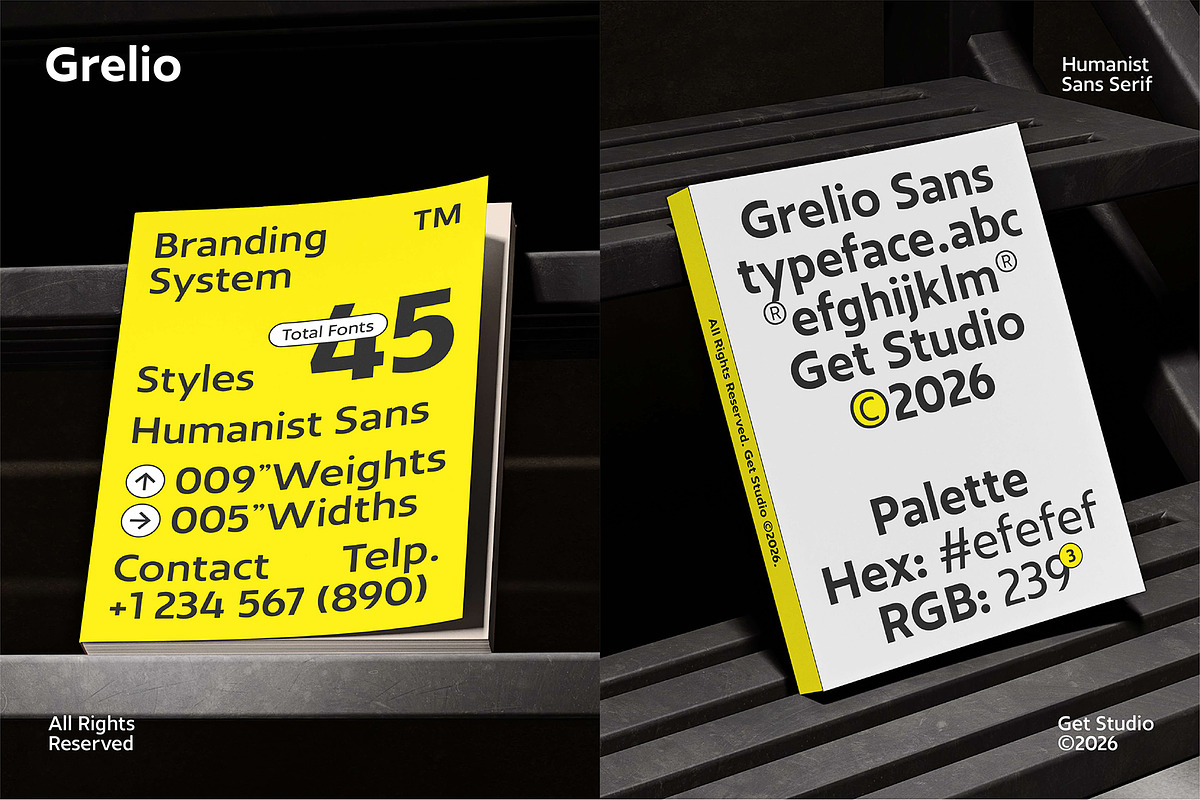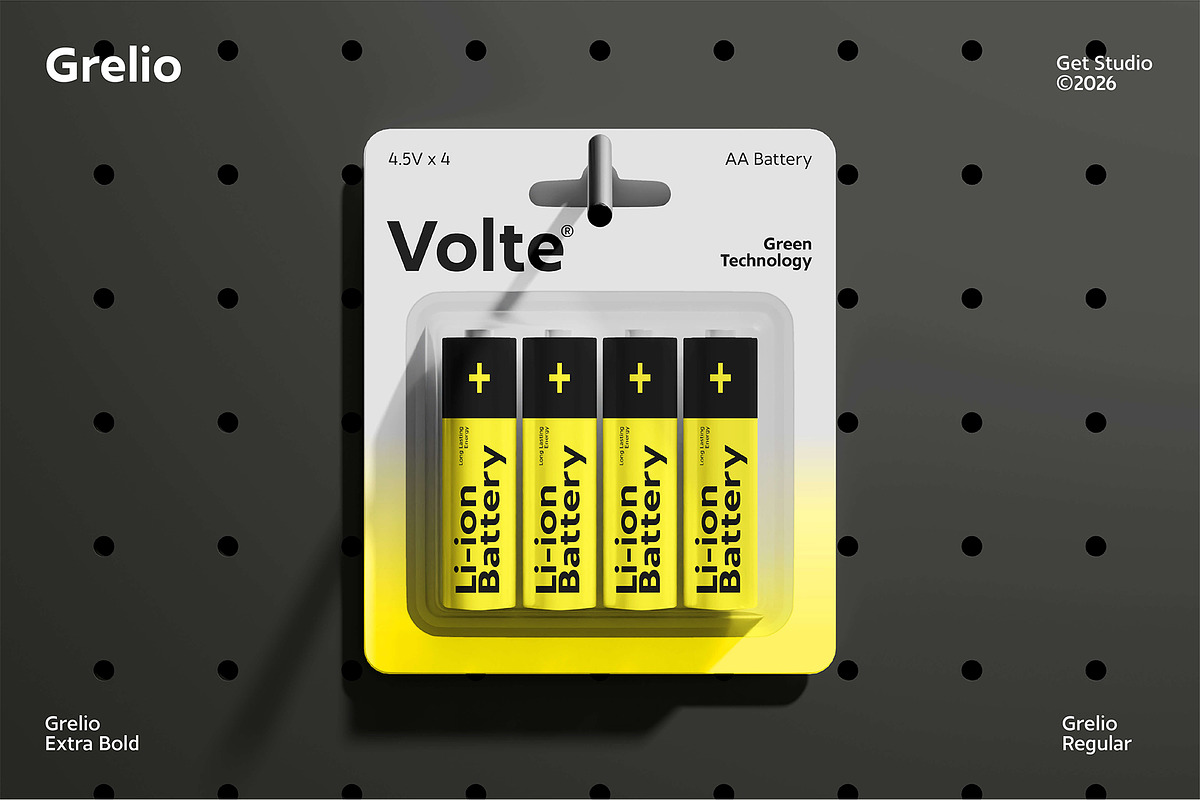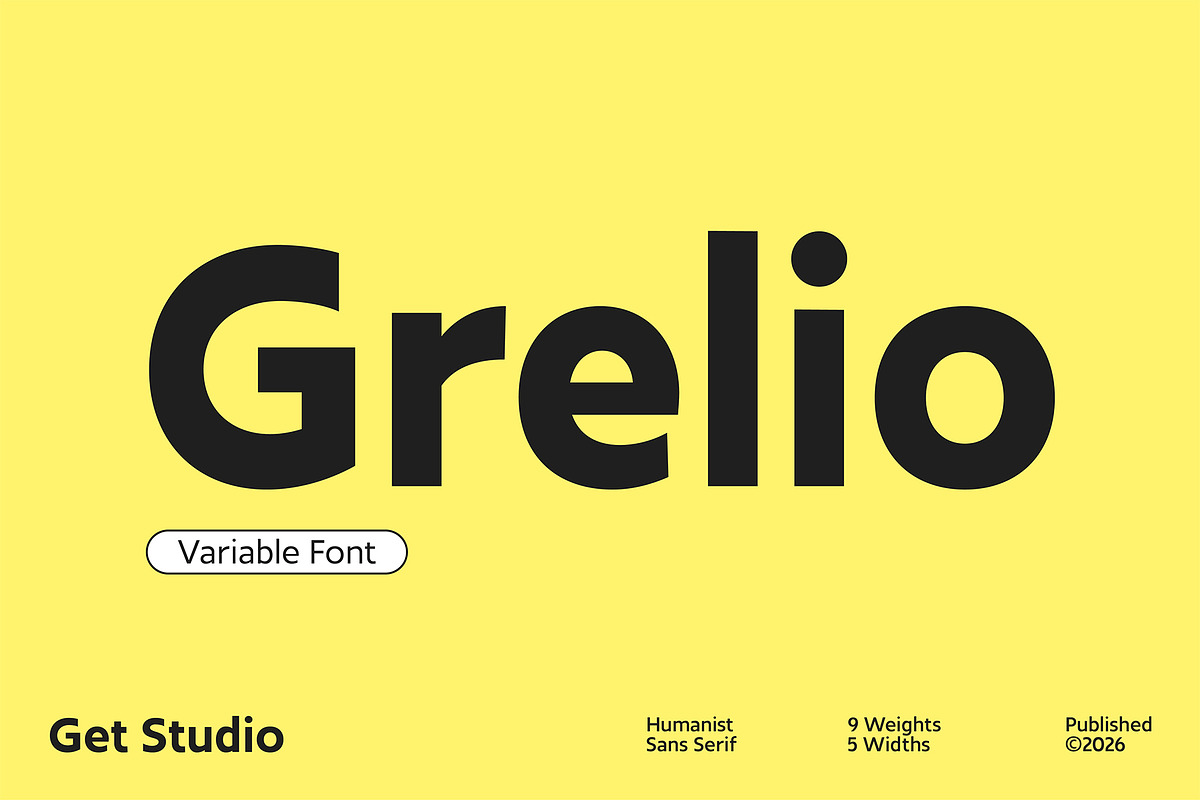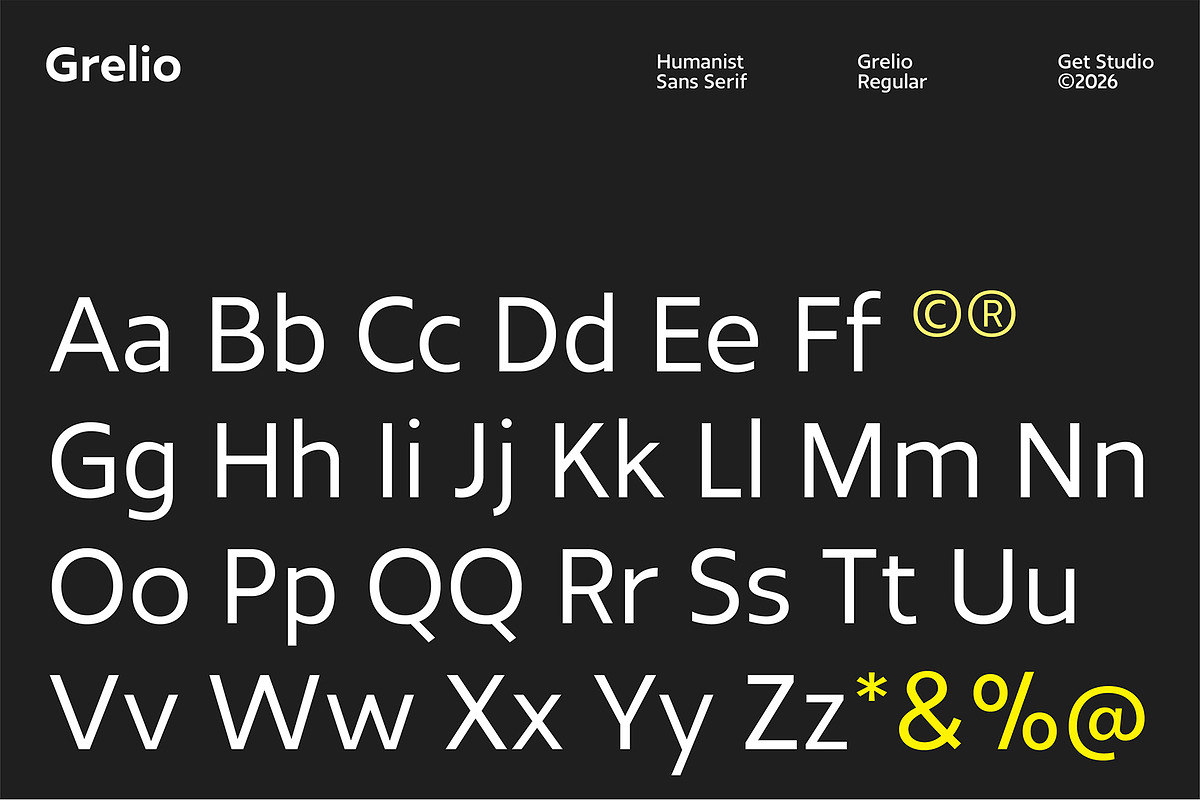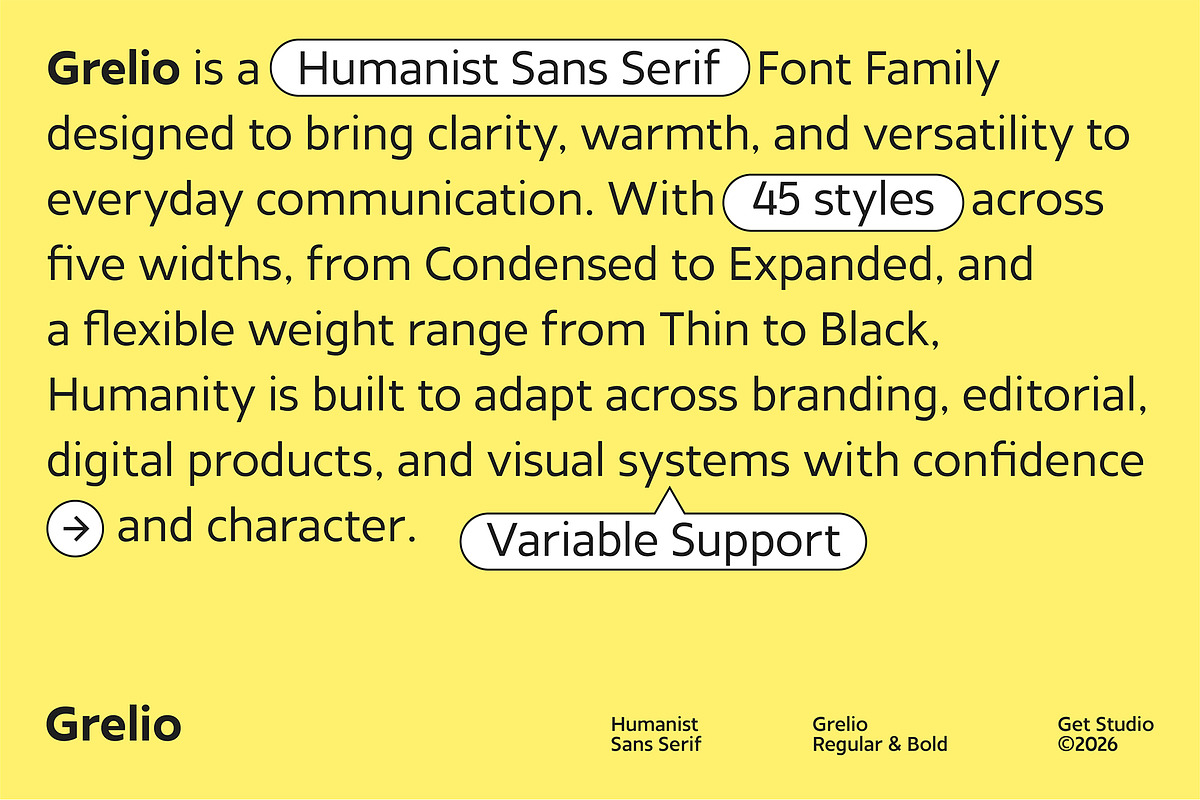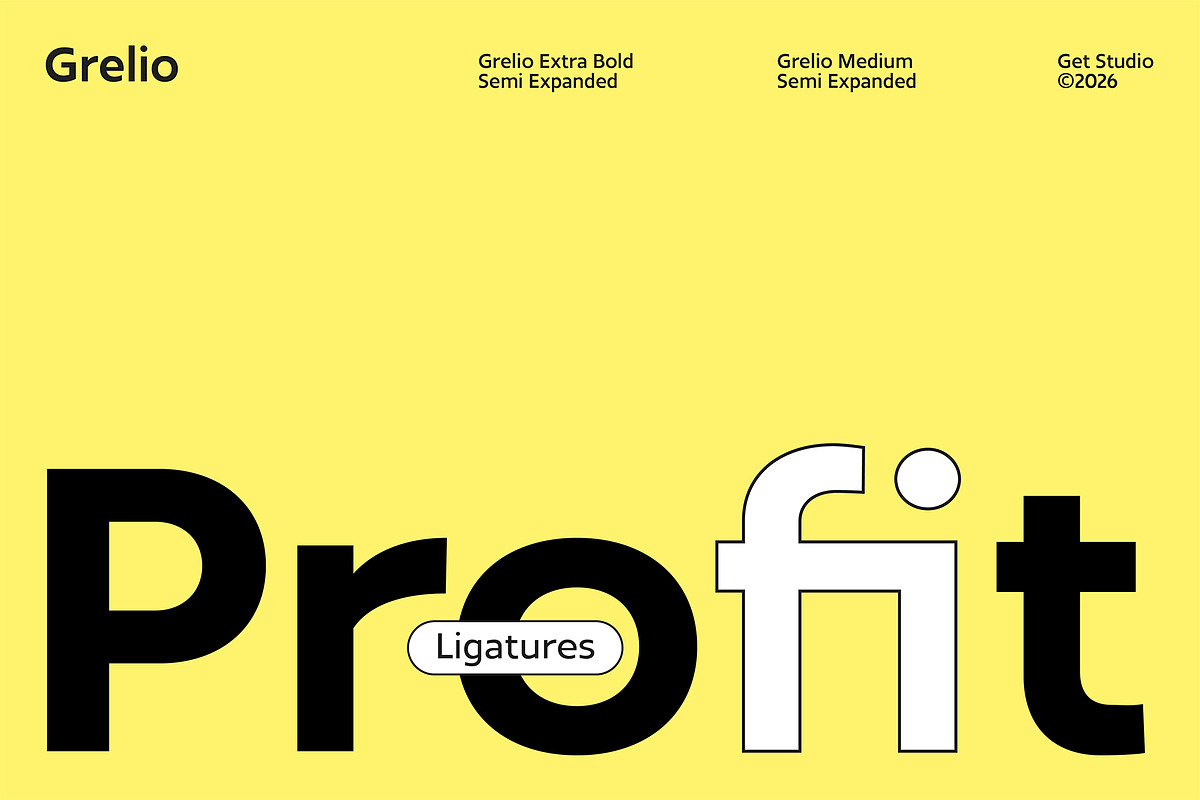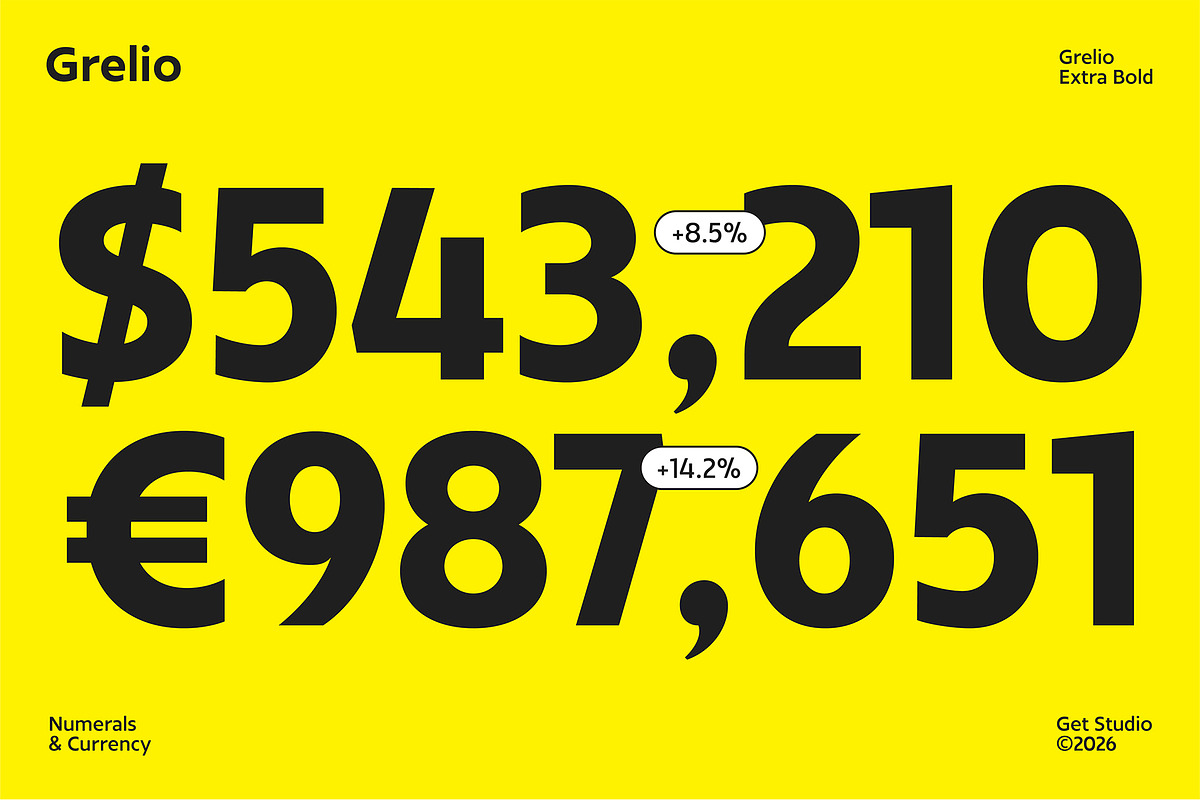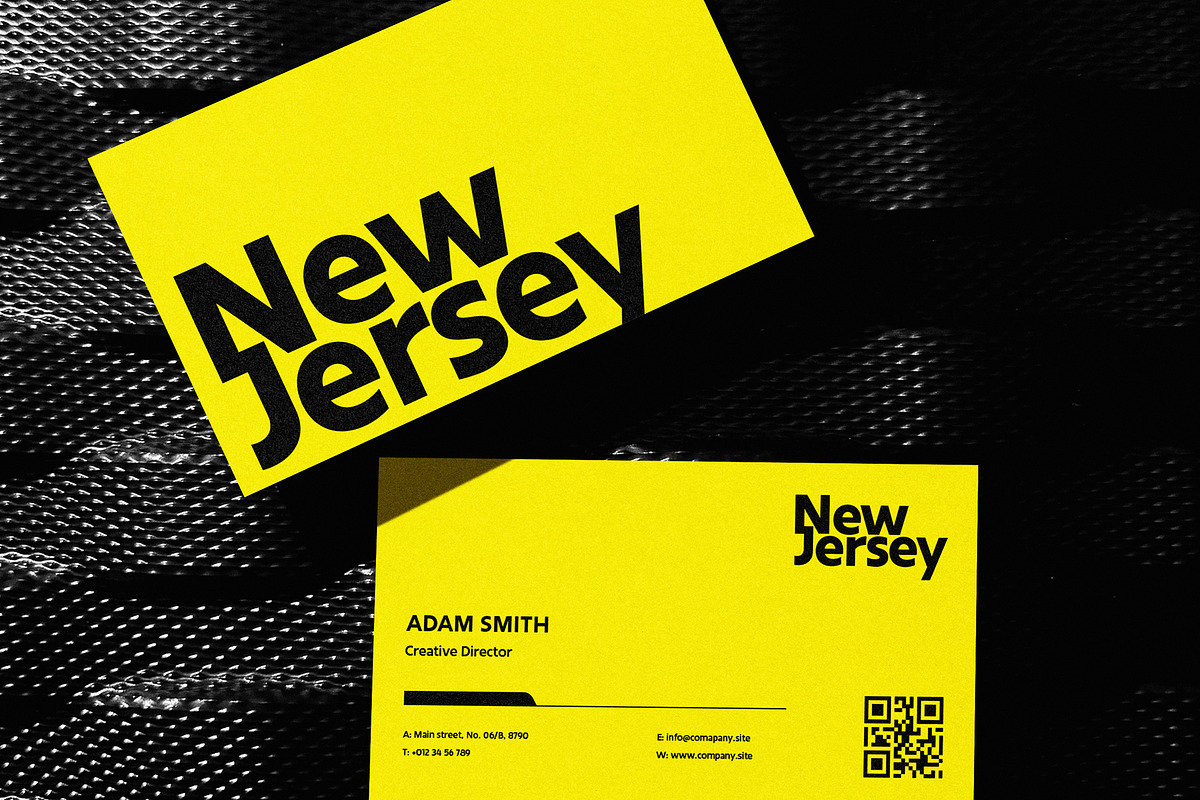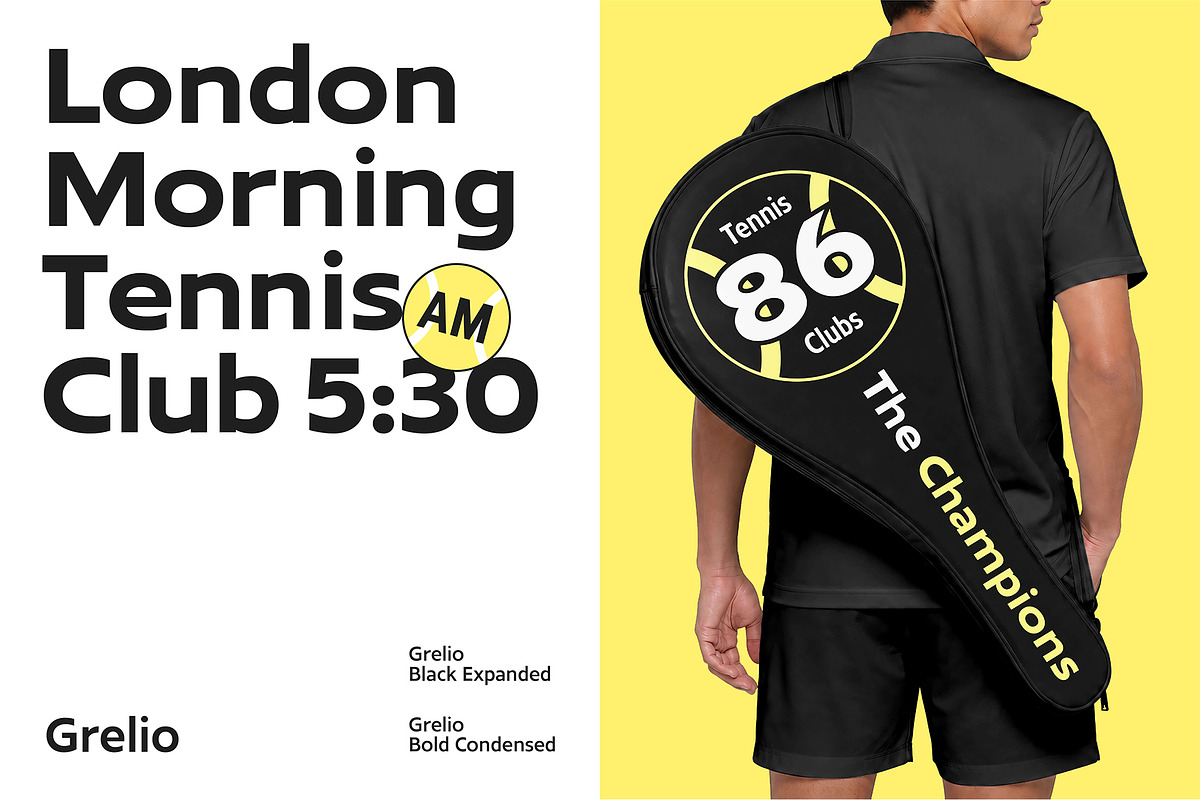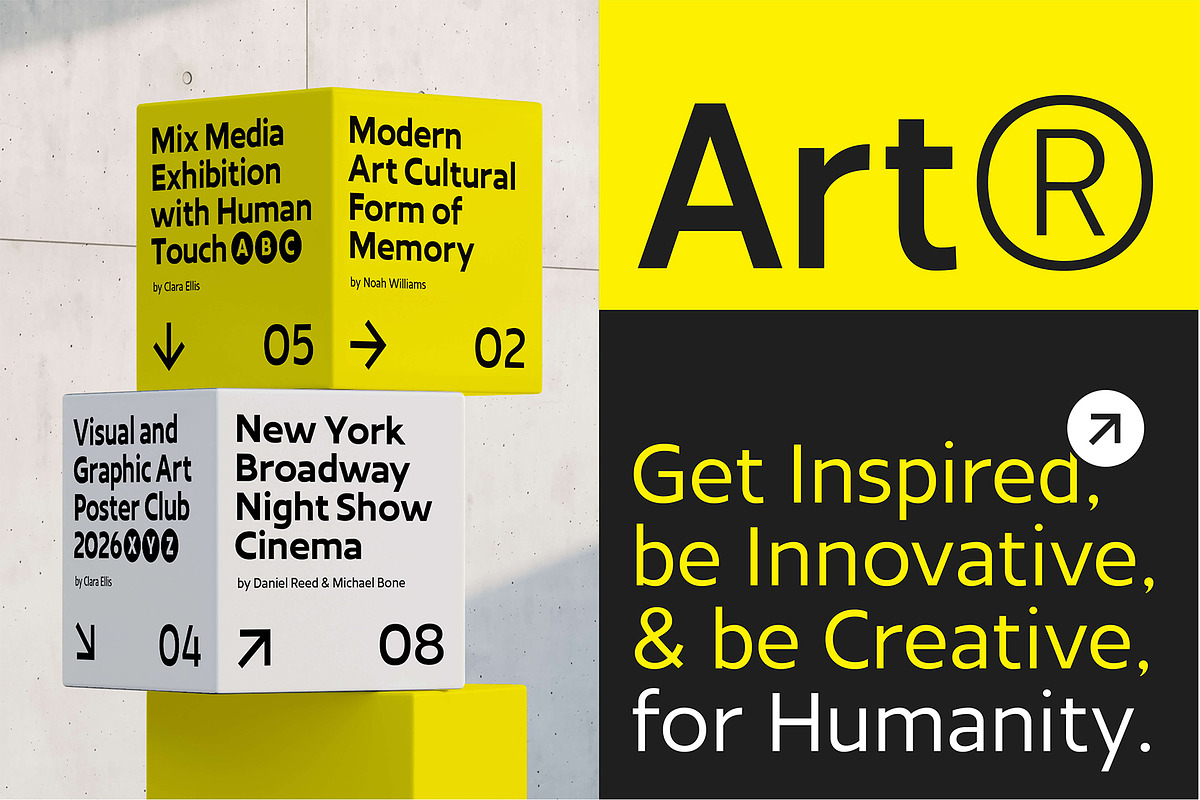
Grelio - Humanist Sans Serif
Grelio is a humanist sans serif family that balances clean structure with a warm, approachable character. Designed for clarity and versatility, it comes in 45 styles across five widths, from Condensed to Expanded, with nine weights from Thin to Black. From branding and editorial design to digital products and visual identities, Grelio adapts effortlessly across sizes, styles, and applications.